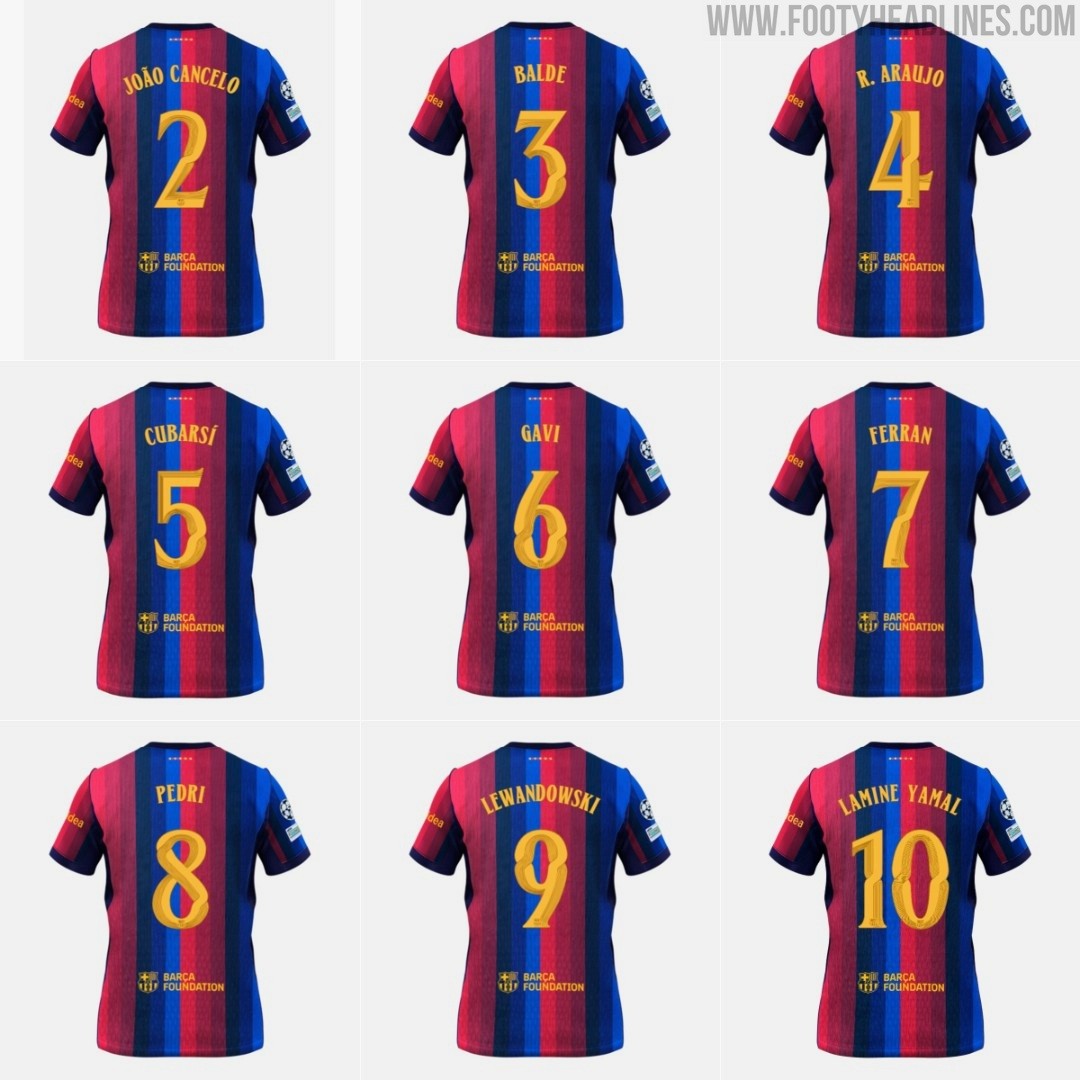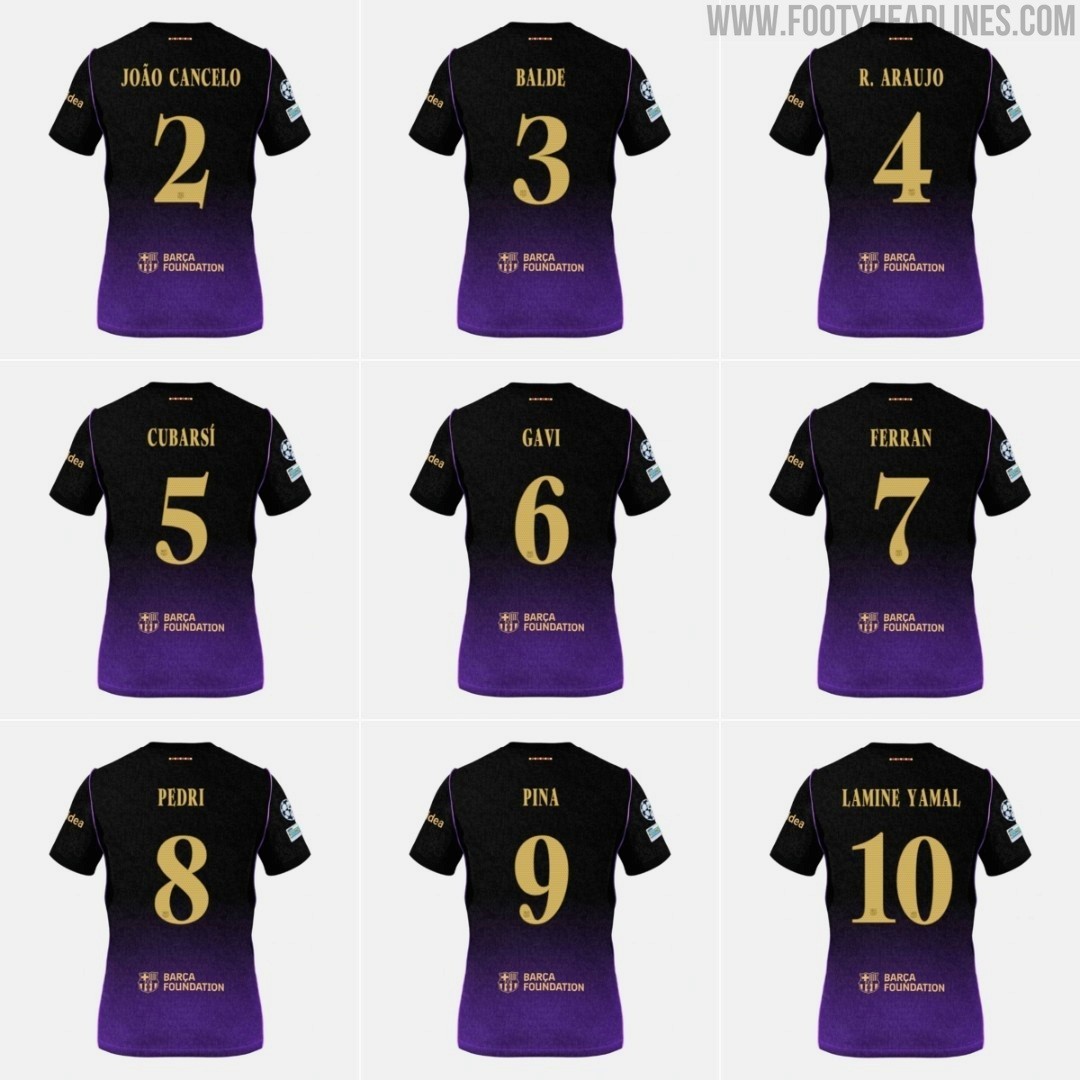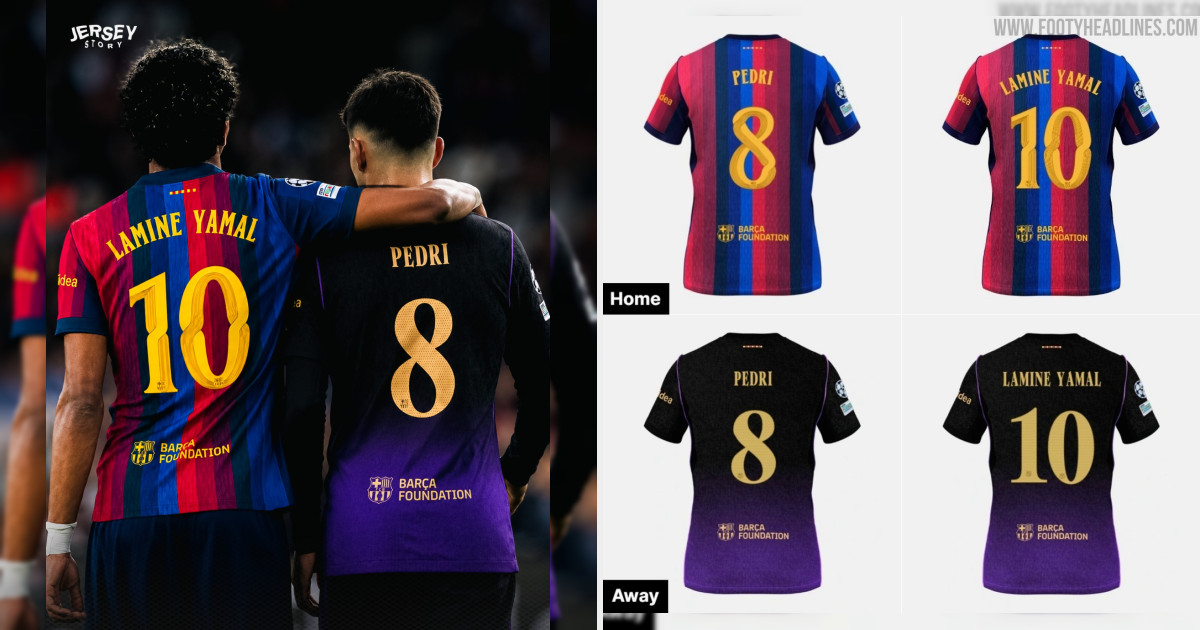
Barcelona Use Two Different Fonts for 26-27 Home and Away Kits
Along with their new 26-27 home and away kits, Barcelona has launched two brand-new font styles to replace the iconic "Barcelona Play" typography, which had been in use since the 19-20 season. Interestingly, both new designs feature Serif fonts - a style never before seen on official Barça shirts.
For the home kit, the font features fine curves inspired by the famous Catalan architect Antoni Gaudí, the visionary behind many of Barcelona's iconic landmarks.
For the away kit, the font takes on a cleaner, simpler serif shape in a gold tone that stands out against the kit's background color.
Barcelona will have a Kappa 1992-inspired font for the third kit, expected to be released soon.